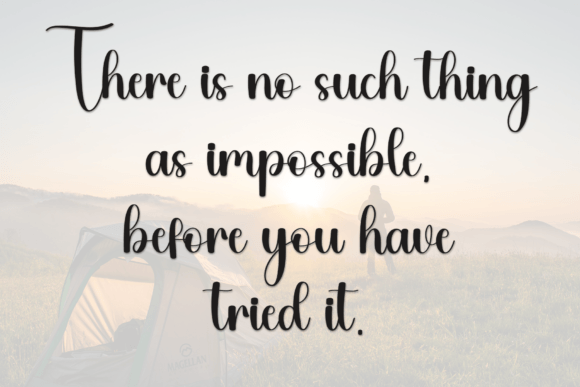
Working Font: A Beautiful and Versatile Typeface for Creative Projects
In the world of typography, fonts play a crucial role in conveying messages, expressing emotions, and creating visual identities. Among the numerous fonts available, Working Font stands out as a unique and captivating typeface that has gained popularity among designers, artists, and creative professionals. Designed with a soft, distinctive touch, Working Font is a beautiful and eye-catching font that can elevate your designs, crafts, and other creative works.
What Makes Working Font Special?
Working Font is a carefully crafted typeface that boasts a range of distinctive features. Its soft, unique touch sets it apart from other fonts, giving it a special character that is both meaningful and versatile. The font’s strokes are designed to be gentle and smooth, making it perfect for a wide range of applications, from digital designs to print materials.
One of the key benefits of Working Font is its versatility. With various characters and a range of glyphs, this font can be used for a multitude of creative projects, including:
- Design projects: Working Font is ideal for graphic designers, offering a unique and captivating style that can enhance logos, brochures, posters, and other visual materials.
- Crafts: The font’s soft, hand-crafted feel makes it perfect for craft projects, such as handmade cards, invitations, and DIY paper crafts.
- Creative works: Working Font can be used for a range of creative projects, including book covers, magazine layouts, and website designs.
This font’s versatility and compatibility make it an excellent choice for designers, artists, and creative professionals who need a reliable and high-quality typeface for their projects.
Enhance Your Designs with Working Font
Working Font can elevate your designs and make them more appealing to a wide range of audiences. Its unique and captivating style can help you:
- Create visually stunning designs that grab attention
- Convey emotions and messages through typography
- Establish a strong brand identity
Whether you’re designing for print or digital media, Working Font is an excellent choice for creating beautiful and effective designs.
Applications in Artistic and Creative Fields
Working Font’s versatility and unique style make it an excellent choice for a range of artistic and creative fields, including:
- Graphic design
- Illustration
- Photography
- Handmade crafts
This font’s soft, hand-crafted feel and distinctive strokes make it perfect for creative professionals who need a high-quality typeface that can enhance their work.
A Font for Future Use
Working Font is designed to be a valuable resource for creative professionals, offering a timeless and versatile style that can be used for years to come. Its unique and captivating design ensures that it will remain a popular choice for:
- Current projects
- Future designs
- Long-term branding and marketing strategies
By investing in Working Font, you can ensure that your designs will remain fresh and relevant, even as design trends evolve.
In conclusion, Working Font is a beautiful and versatile typeface that offers a range of benefits for creative professionals. Its unique and captivating style, compatibility with various applications, and versatility make it an excellent choice for a wide range of projects. Whether you’re a designer, artist, or creative professional, Working Font is a valuable resource that can enhance your work and help you achieve your creative goals.